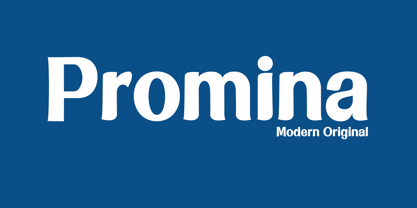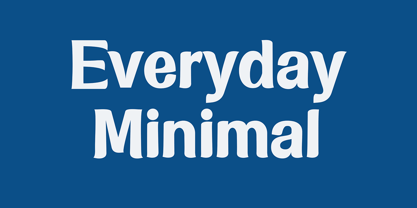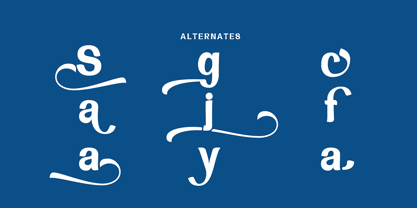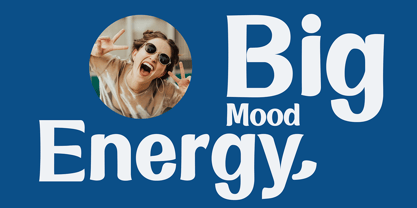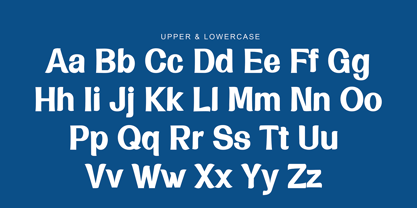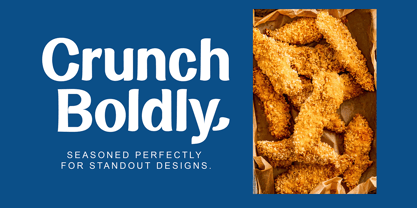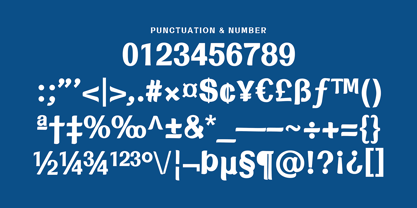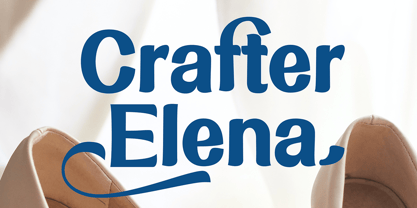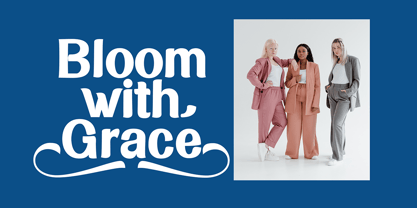
Promina
by Gatype
The Promina Font Family was designed by khaidir and published by Gatype. Promina contains 2 styles.
Promina is a modern elegant serif that blends timeless sophistication with a fresh, contemporary touch. Every curve and detail is carefully crafted to express confidence, beauty, and originality — giving each letter a distinctive royal charm. This typeface includes alternates and stylish ligatures, allowing you to create unique, luxurious typography with ease. Perfect for branding, editorial designs, and any project that calls for a refined yet modern feel. Use it for: logos, fashion branding, magazines, packaging, or elegant invitations. ✨ Features: Uppercase & lowercase Alternates & ligatures Multilingual support Punctuation & symbols A touch of royalty — made simple for you. 👑
Designers: khaidir
Publisher: Gatype
Foundry: Gatype
Design Owner: Gatype